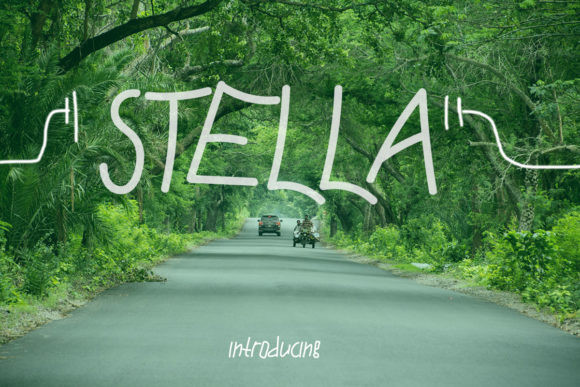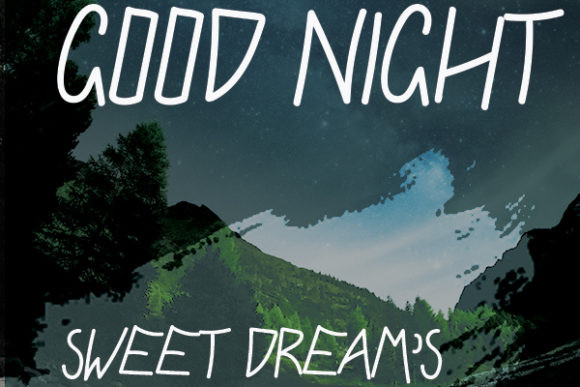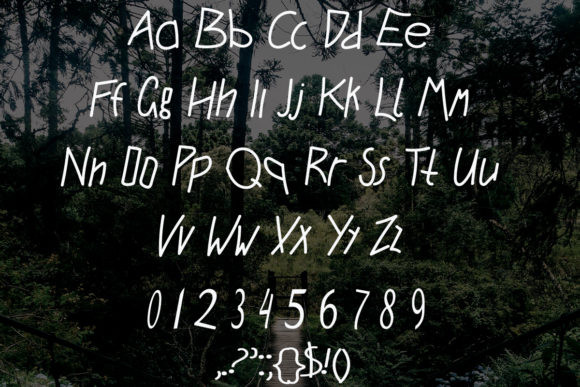
Stella Font
Stella is a cute and casual handwritten font with an incredibly friendly feel. Whether you’re looking for fonts for DIY projects, this font will turn any creative idea into a true piece of art. Perfect decoration for mugs, shirts, hats, tote bags, card making, wall art, interior prints, heat transfer vinyl, vinyl stickers and much more!